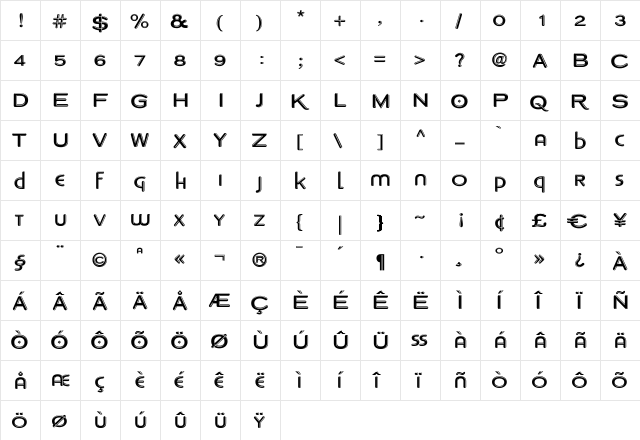
Copperplate Modern Bold Chrome Regular
Design Context for Copperplate Modern Bold Chrome Typeface
Copperplate Modern Bold Chrome offers clean, dependable letterforms without strong stylistic allegiance, making it a practical choice for designers who need flexibility. The heavy weight commands attention and anchors typographic hierarchies.